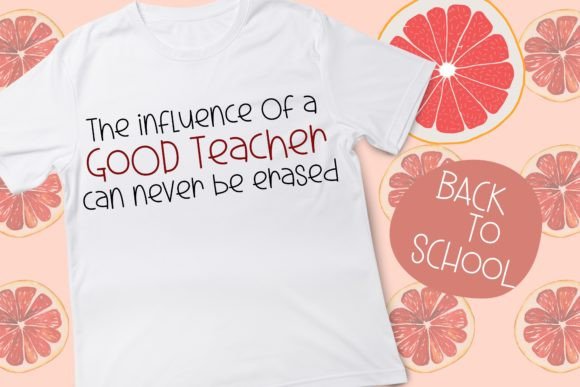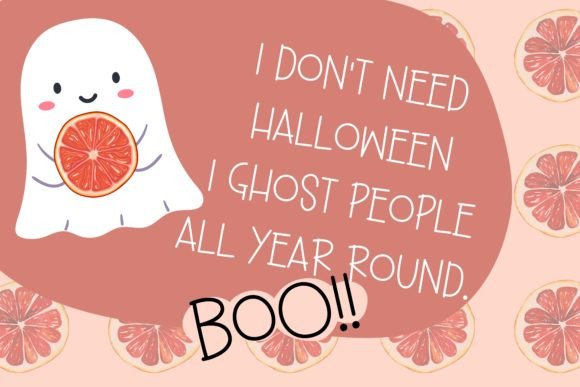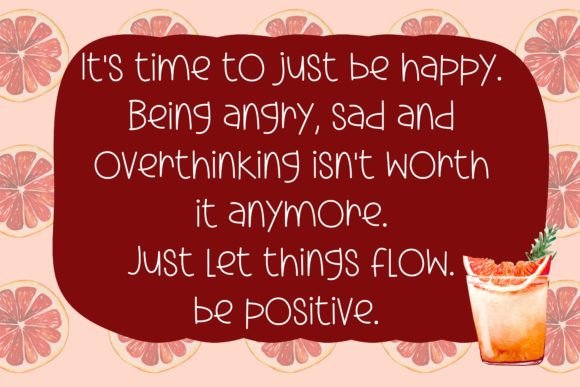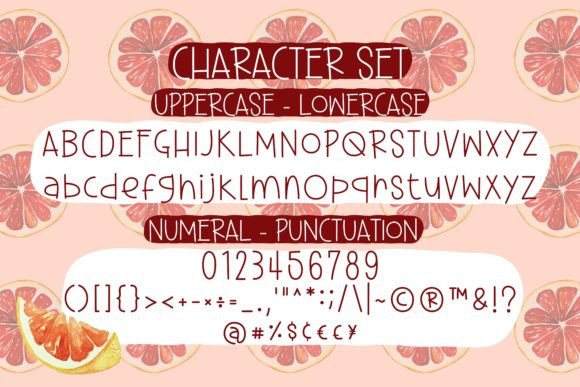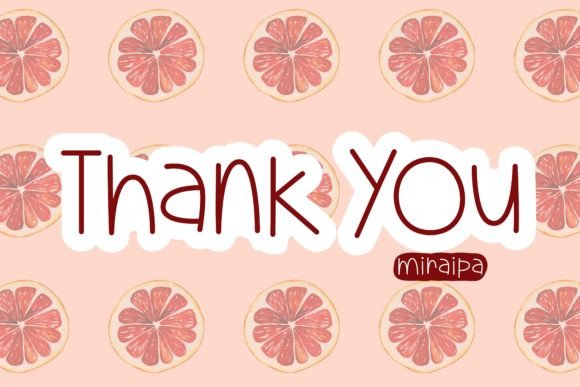
Introducing Grapefruit Font: The Perfect Addition to Your Design Projects
Are you tired of using the same old fonts in your design projects? Look no further than Grapefruit Font, a cute and playful sans serif font that’s sure to add a touch of whimsy to your creations. With its charming and quirky style, Grapefruit Font is perfect for designers and crafters who want to add a friendly touch to their work.
What Makes Grapefruit Font So Special?
Grapefruit Font is designed with a cute and playful sans serif font style that’s both charming and whimsical. Its quirky design makes it perfect for a variety of projects, from fun and playful designs to more sophisticated and elegant creations. Whether you’re working on a DIY project, designing a poster or blog, or creating social media posts, Grapefruit Font is sure to bring a smile to your face and add a touch of personality to your work.
The Perfect Font for Fun and Creative Projects
Grapefruit Font is ideal for designers and crafters who work on fun and creative projects. Its playful style makes it perfect for:
- Easter and spring-themed designs
- Back to school and educational materials
- Wedding and party decorations
- Fall and Halloween-themed designs
- Christmas and holiday decorations
- Posters and blogs
- Clothing and child-related designs
- Social media posts and online content
Why Choose Grapefruit Font?
There are many reasons why Grapefruit Font is a great choice for designers and crafters. Here are just a few:
- Unique and quirky design: Grapefruit Font has a one-of-a-kind design that’s sure to stand out from the crowd.
- Playful and friendly style: This font is perfect for designers who want to add a touch of personality and whimsy to their work.
- Versatile: Grapefruit Font can be used for a wide range of projects, from fun and playful designs to more sophisticated and elegant creations.
Tips and Tricks for Getting the Most Out of Grapefruit Font
Here are a few tips and tricks for getting the most out of Grapefruit Font:
- Experiment with different sizes and colors: Grapefruit Font looks great in a variety of sizes and colors, so don’t be afraid to experiment and find the perfect combination for your project.
- Pair it with other fonts: Grapefruit Font pairs well with other fonts, so try combining it with a serif font for a unique and interesting look.
- Use it for headlines and titles: Grapefruit Font is perfect for headlines and titles, adding a touch of personality and whimsy to your design.
| Font Name | Grapefruit Font |
| Author | miraipa |
Grapefruit Font is a unique and quirky font that’s perfect for designers and crafters who want to add a touch of personality and whimsy to their work. With its playful style and versatile design, it’s ideal for a wide range of projects, from fun and playful designs to more sophisticated and elegant creations. So why wait? Add Grapefruit Font to your font library today and bring your DIY projects to life!